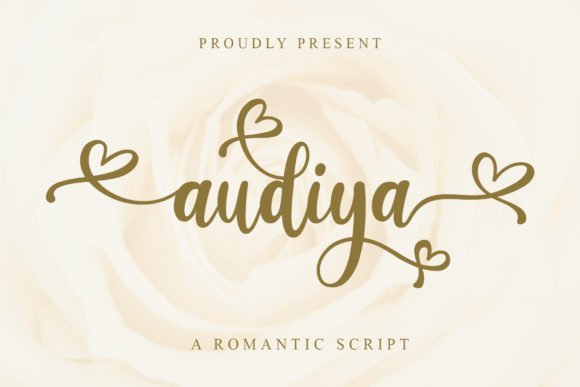
A New Font to Make Your Creativity Shine
Have you ever been brainstorming a new project, pouring over ideas, and suddenly, a spark of inspiration hits you? The words start flowing, and your imagination runs wild. That’s the magic of creativity, and it’s exactly what the Audiya Font is designed to unlock.
Audiya is a charming script font that brings a touch of whimsy to your designs. Its playful characters seem to dance along the baseline, adding a sense of movement and energy to your work. With its PUA encoding, you can easily access all the glyphs and swashes, giving you endless possibilities to customize and personalize your designs.
For designers, the Audiya Font is a valuable addition to your toolkit. It’s perfect for adding a touch of elegance and sophistication to your branding, marketing materials, or digital projects. Whether you’re a seasoned pro or just starting out, Audiya is sure to inspire your creativity and help you stand out from the crowd.
Audiya Font Key Features
- Font Family: Audiya is a typeface designed to evoke a sense of elegance and sophistication, making it ideal for high-end branding and design projects.
- Character Set: Audiya Font contains a comprehensive character set, including uppercase and lowercase letters, numerals, punctuation marks, and special characters, ensuring that users have a wide range of options for creative expression.
- Size and Resolution: Audiya Font is designed to be scalable, with a minimum size of 12pt and a maximum size of 72pt, making it suitable for a variety of design applications, from small text to large headings.
- Unique Characteristics: Audiya Font features a unique blend of modern and traditional design elements, with a focus on clean lines, elegant curves, and subtle flair, setting it apart from other typefaces in its class.
Audiya Font Review
I’ve had the chance to work with the Audiya font, and I must say it’s a mixed bag. Here’s my honest review.
- The Audiya font has a unique and modern design that can add a touch of sophistication to any project.
- The font is highly legible, even at small font sizes, making it perfect for digital use.
- The font family includes a wide range of weights and styles, giving designers plenty of options to choose from.
- The font can feel a bit overused and generic, making it less likely to stand out in a crowded design landscape.
- The font’s x-height is a bit inconsistent across different weights, which can affect readability.
- The font lacks a clear, distinct personality, making it less memorable and harder to brand.
Overall, the Audiya font is a solid, reliable choice for designers who want a clean and modern look. However, it may not be the best option for designers looking to make a bold statement or create a unique brand identity.
Tips for Getting the Most Out of Audiya Font
Some tips for getting the most out of Audiya font include:
– Use it for titles and headings to add a touch of elegance and sophistication.
– Combine it with other fonts to create a unique and eye-catching design.
– Experiment with different font sizes and colors to achieve the desired effect.
Audiya font is commonly used in:
– Branding and logo design
– Luxury product packaging and advertising
– High-end business presentations and reports
Alternatives to Audiya Font
Montserrat is a modern sans-serif font that is highly legible and versatile. It is suitable for a wide range of designs, including logos, headings, and body text. Montserrat is a great alternative to Audiya Font for designers who want a clean and minimalist aesthetic.